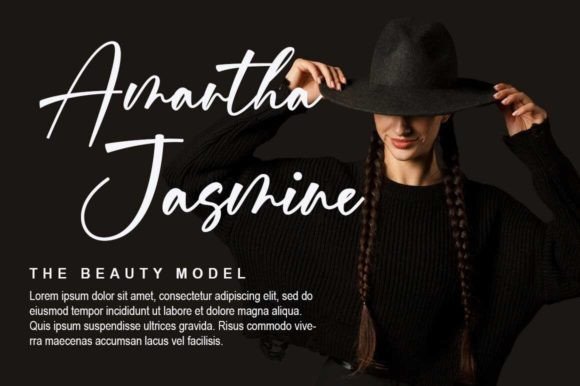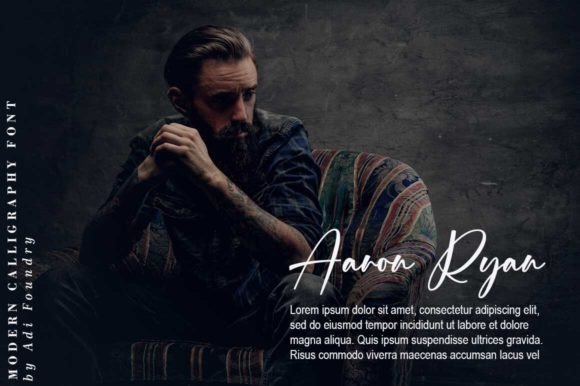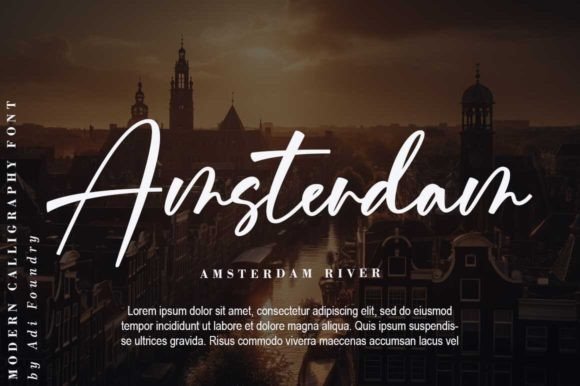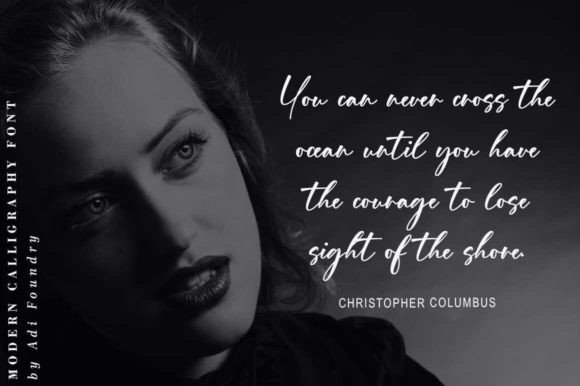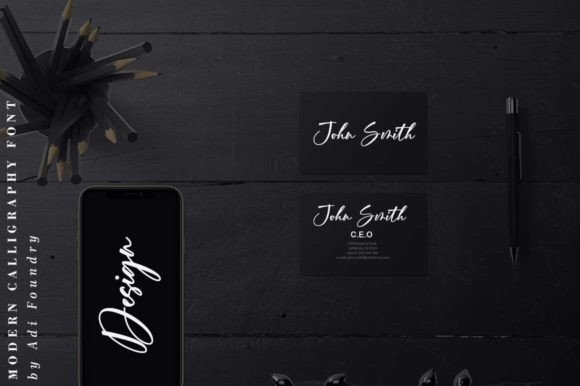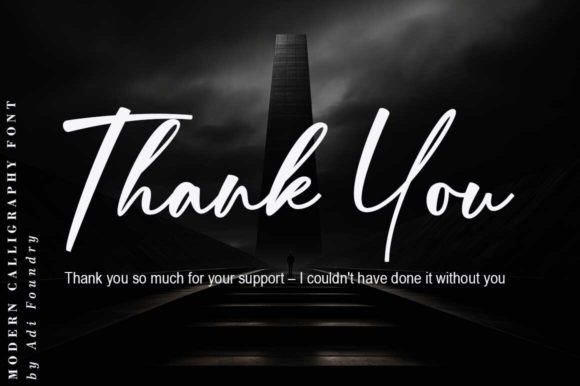
Introduction to Hallucinate Signature Font
Hallucinate signature is a handwritten font with a unique and modern feel.
It will be perfectly used for Branding, Logo Design, Lettering, Logotype, Clothing, Posters, magazine, packaging, posters, shopping bags, t-shirts, book covers, photography, special events, and other design projects .
Hallucinate Signature Font offers exceptional quality and versatility, making it a valuable addition to your design toolkit. Whether you’re creating for personal projects or commercial use, Hallucinate Signature Font delivers professional results.